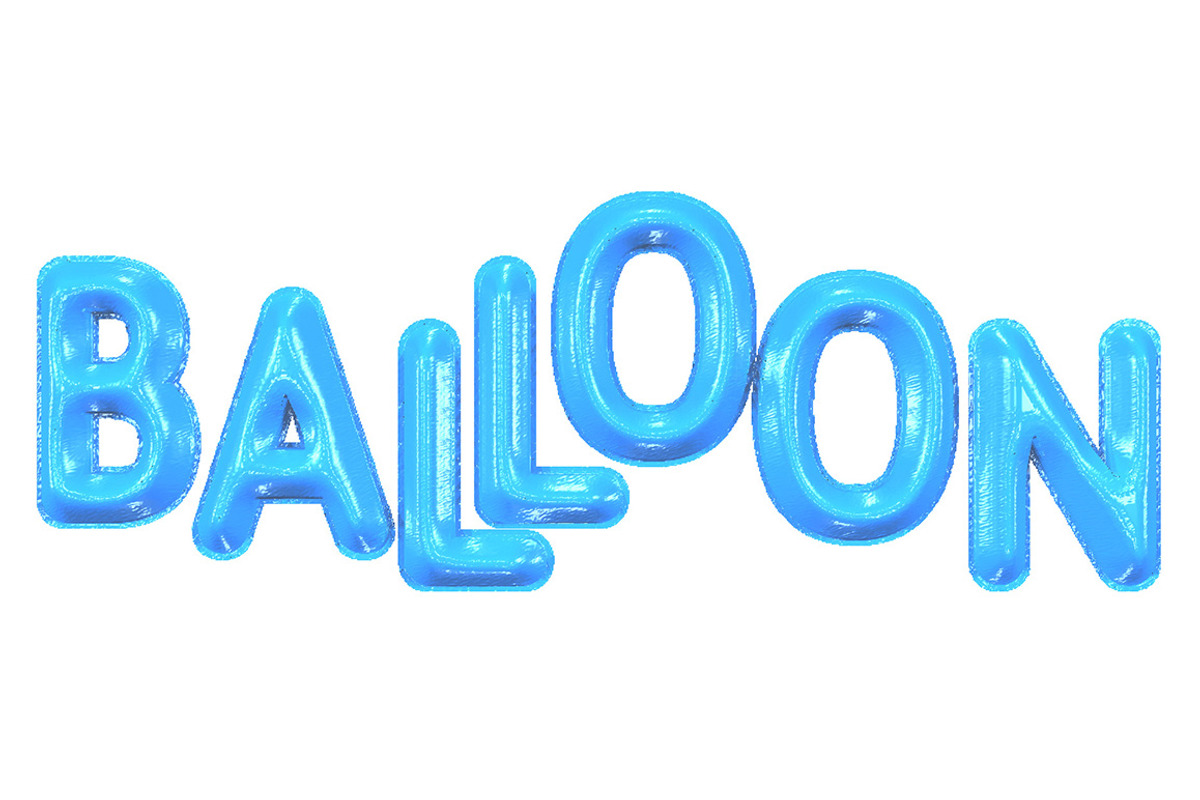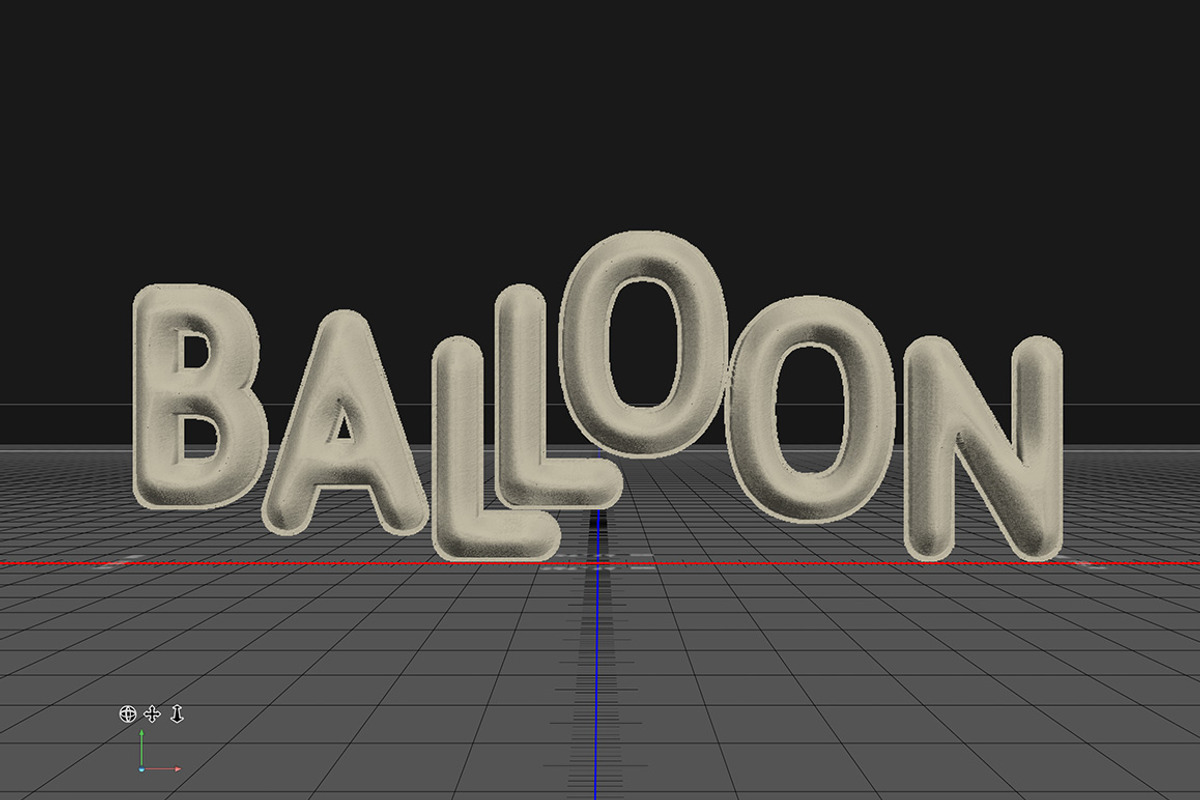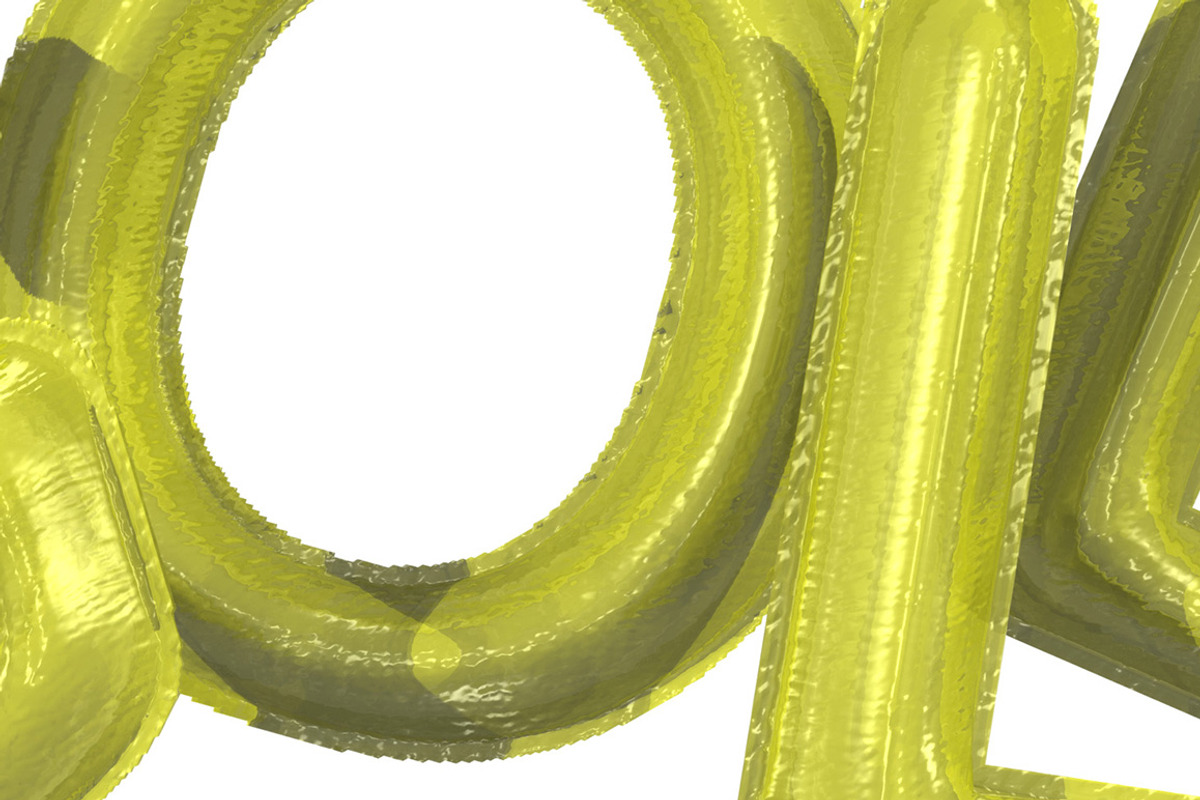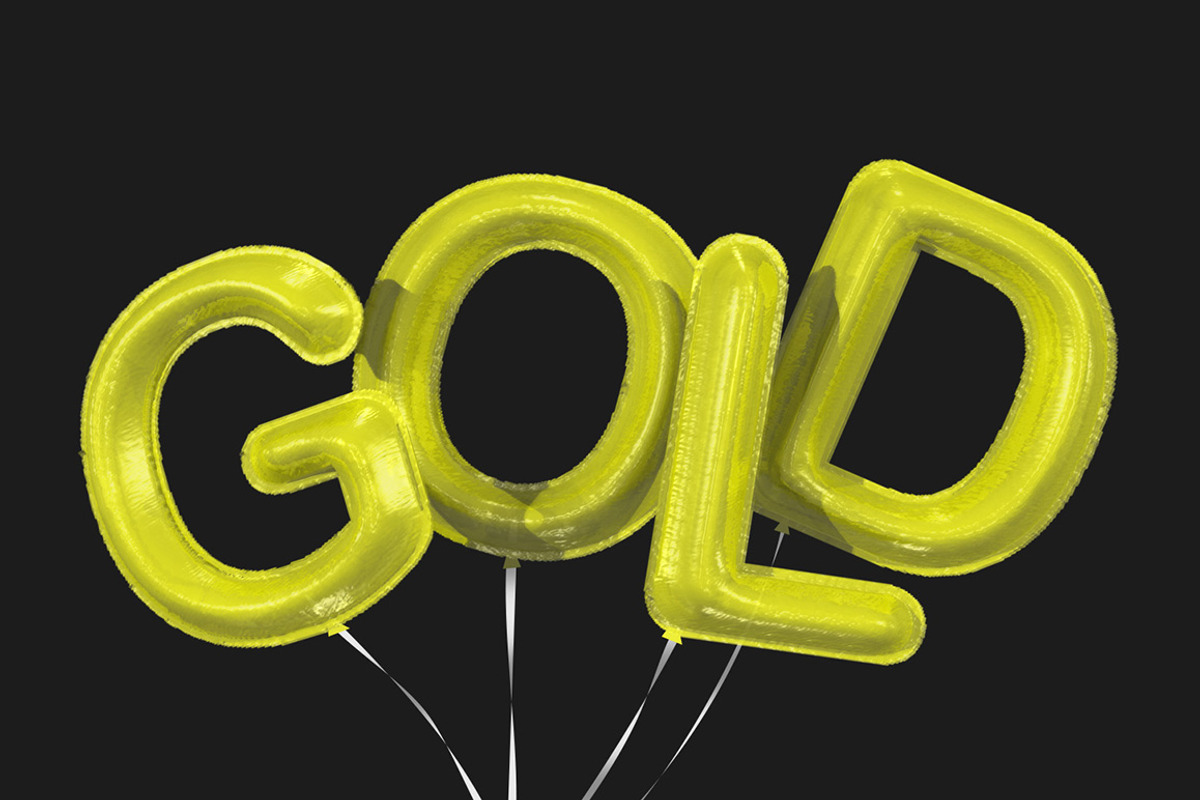
3D FONT | BALLOON | 3D PSD
Customize your own text from the balloons. You can choose any font, text and color, rotate 360º. Rendering any size.
3D FONT | BALLOON | 3D PSD by Sergey Serebrennikov fits naturally into Branding, posters, packaging, typography.